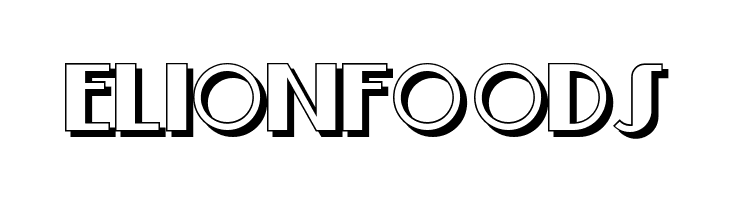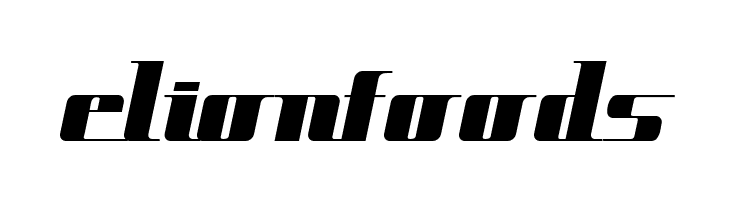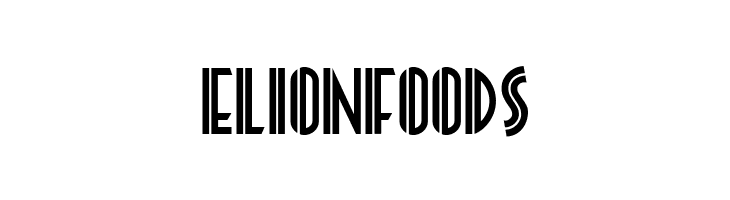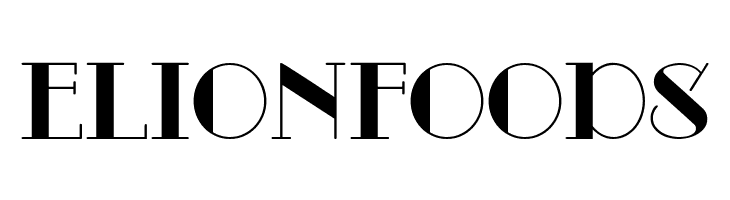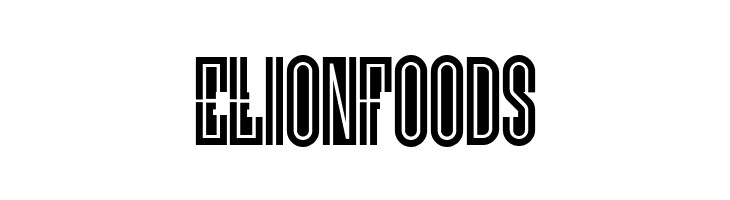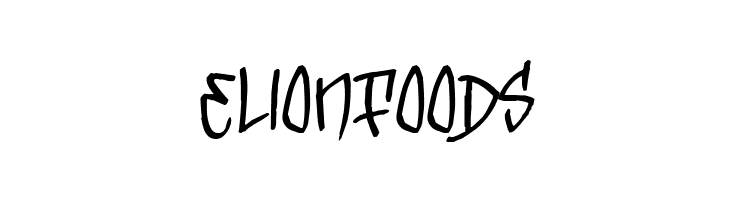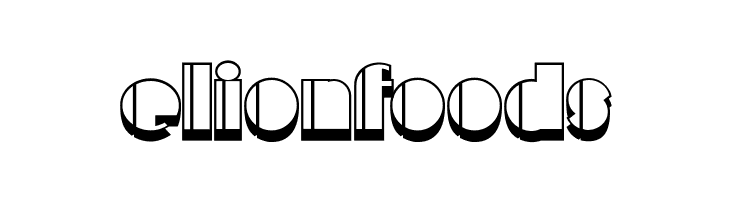
• Boogie Nights ShadowNF
A bold, retro font with a shadow effect, perfect for vintage-themed designs.
• Space Cadet NF
A bold, futuristic font with sharp angles and a dynamic slant.
• Anchor Steam NF
A bold, Art Deco-inspired font with geometric shapes and sharp angles.
• Vlaanderen Round NF
A playful, rounded font with bold, smooth curves and consistent stroke width.
• Platonick NF
A bold, geometric font with Art Deco influences and dynamic character shapes.
• Odalisque NF
An elegant, high-contrast decorative font with intricate details.
• Vielle Varsovie NF
A bold, geometric font with a three-dimensional outline style.
• Colwell - Alternates
An elegant and decorative font with intricate swirls and flowing letterforms.
• TrickTag
A bold, graffiti-inspired font with dynamic, hand-drawn strokes.
• High Five Jive NF
A bold, geometric font with a 3D shadow effect, ideal for impactful designs.